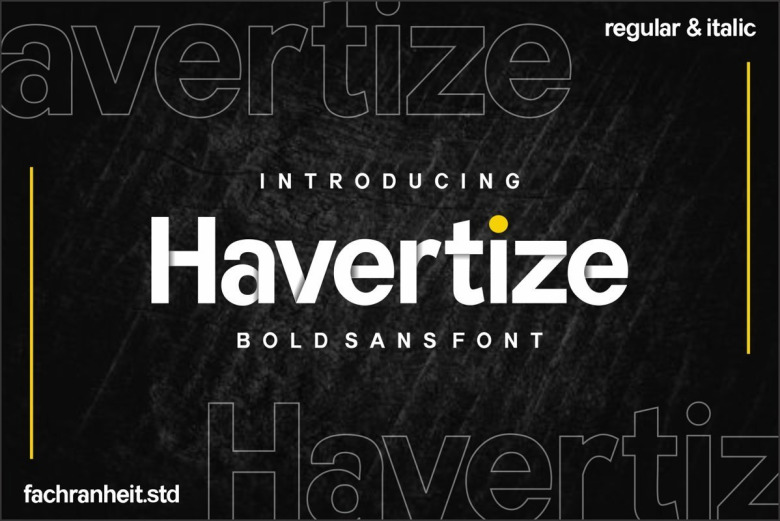
Havertize Sans is a modern and bold sans-serif font. it’s come with two style regular and italic. It can easily be matched to an incredibly large set of projects, so add it to your creative ideas and notice how it makes them stand out!